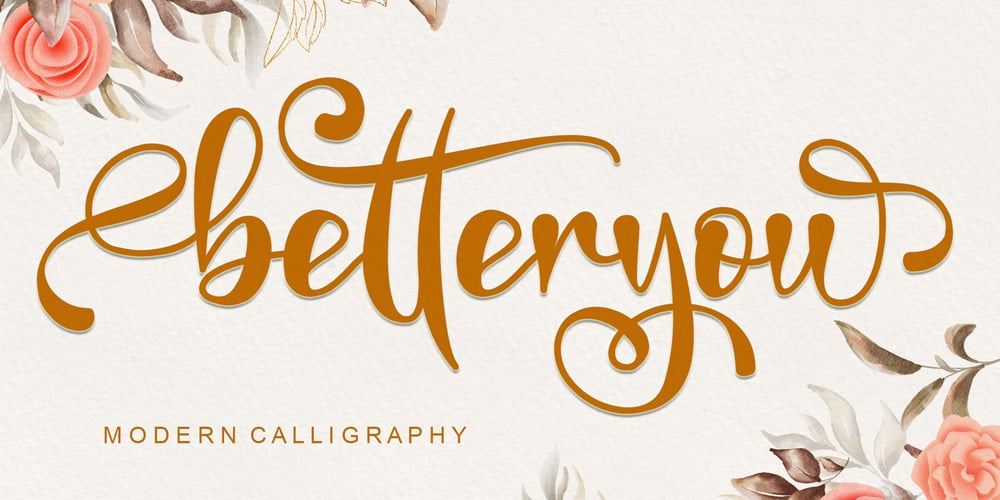
Betteryou
Betteryou font
Betteryou Font Family was designed by Ahmad Afandi and published by Letterafandi Studio. Betteryou contains 1 styles and family package options. Betteryou is a beautiful light handwritten font with a unique feel and a stunning impact. It will add a luxury spark to any design project that you wish to create! This font is PUA encoded which means you can access all of the amazing glyphs and ligatures with ease!